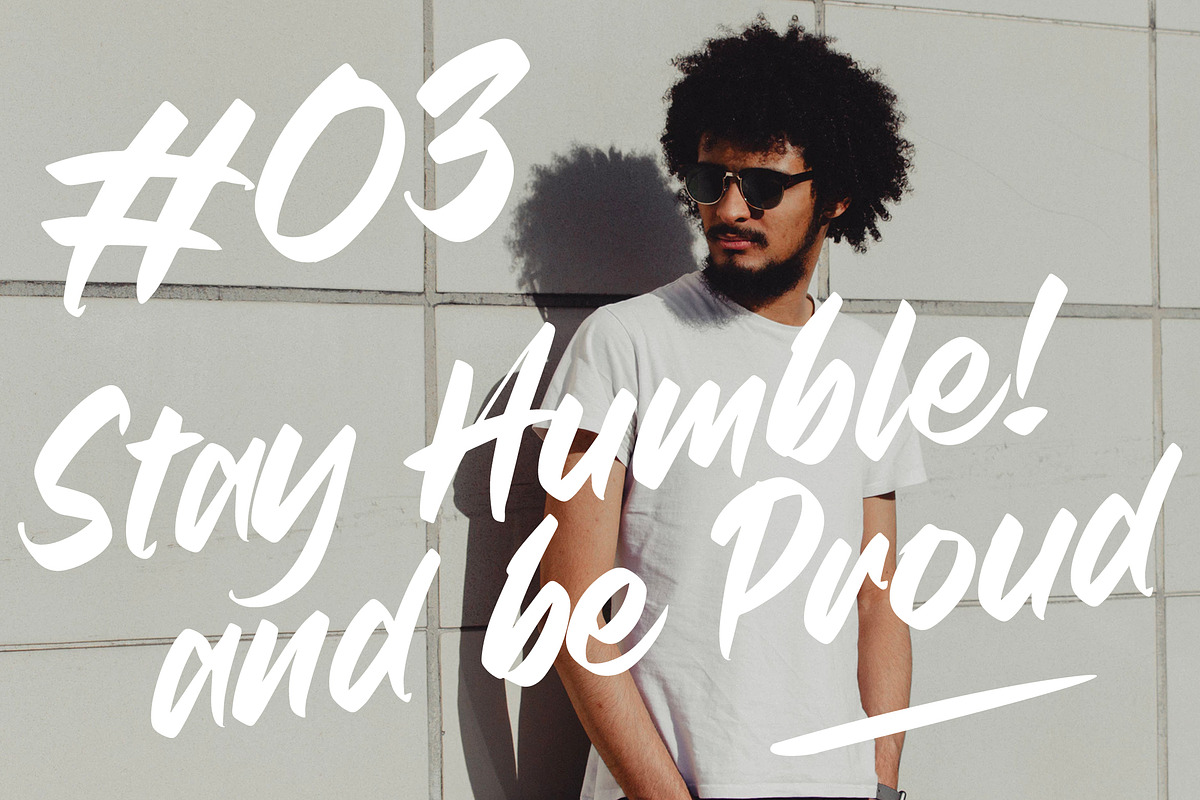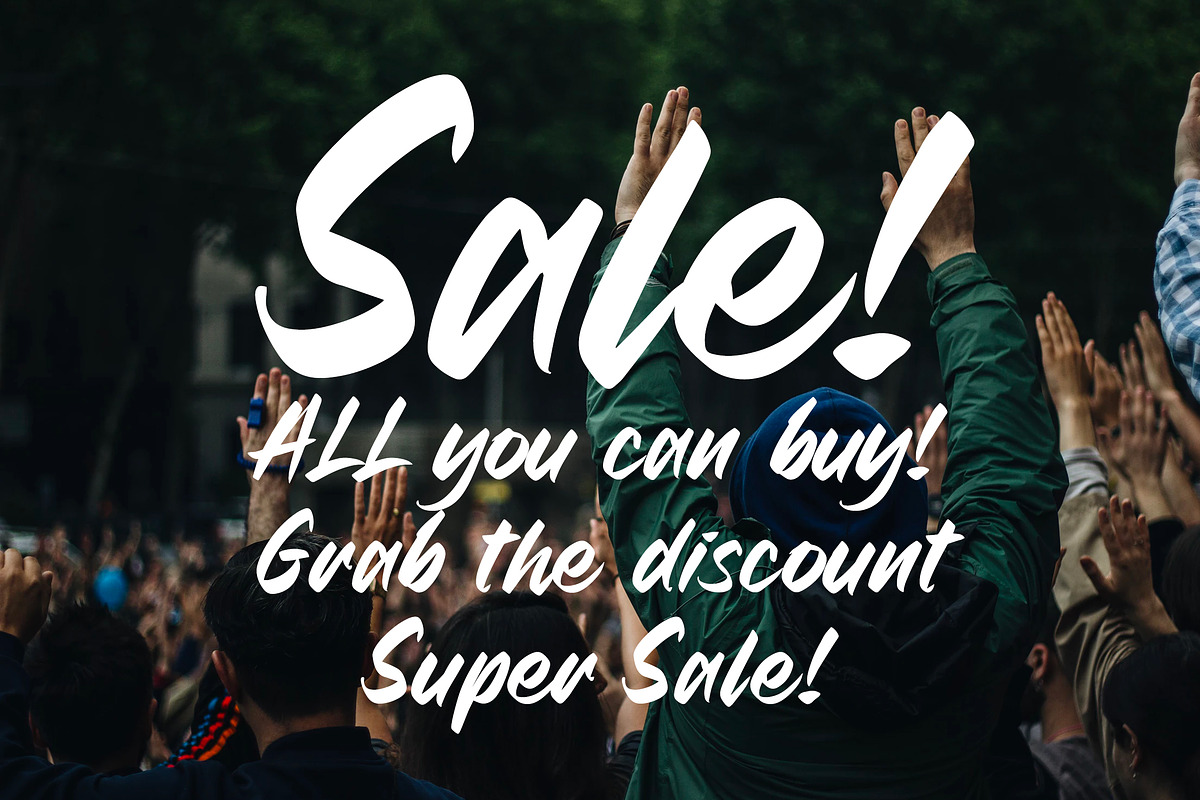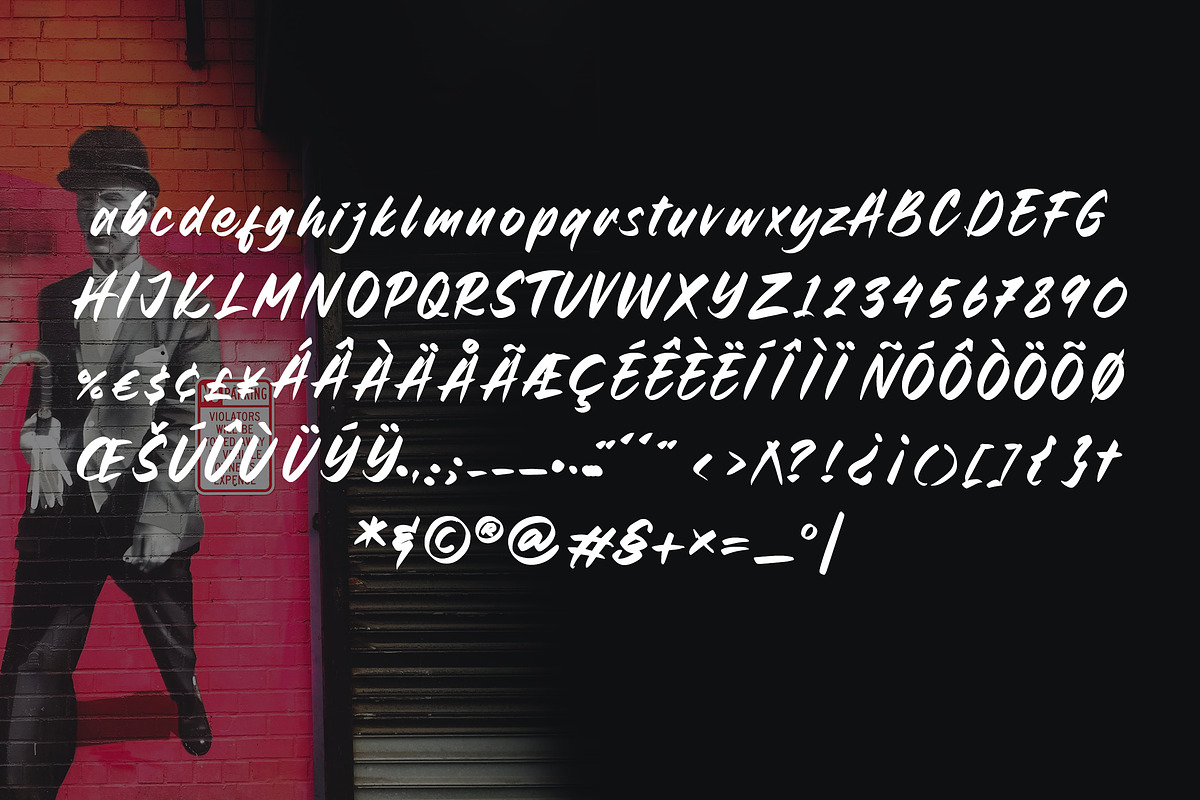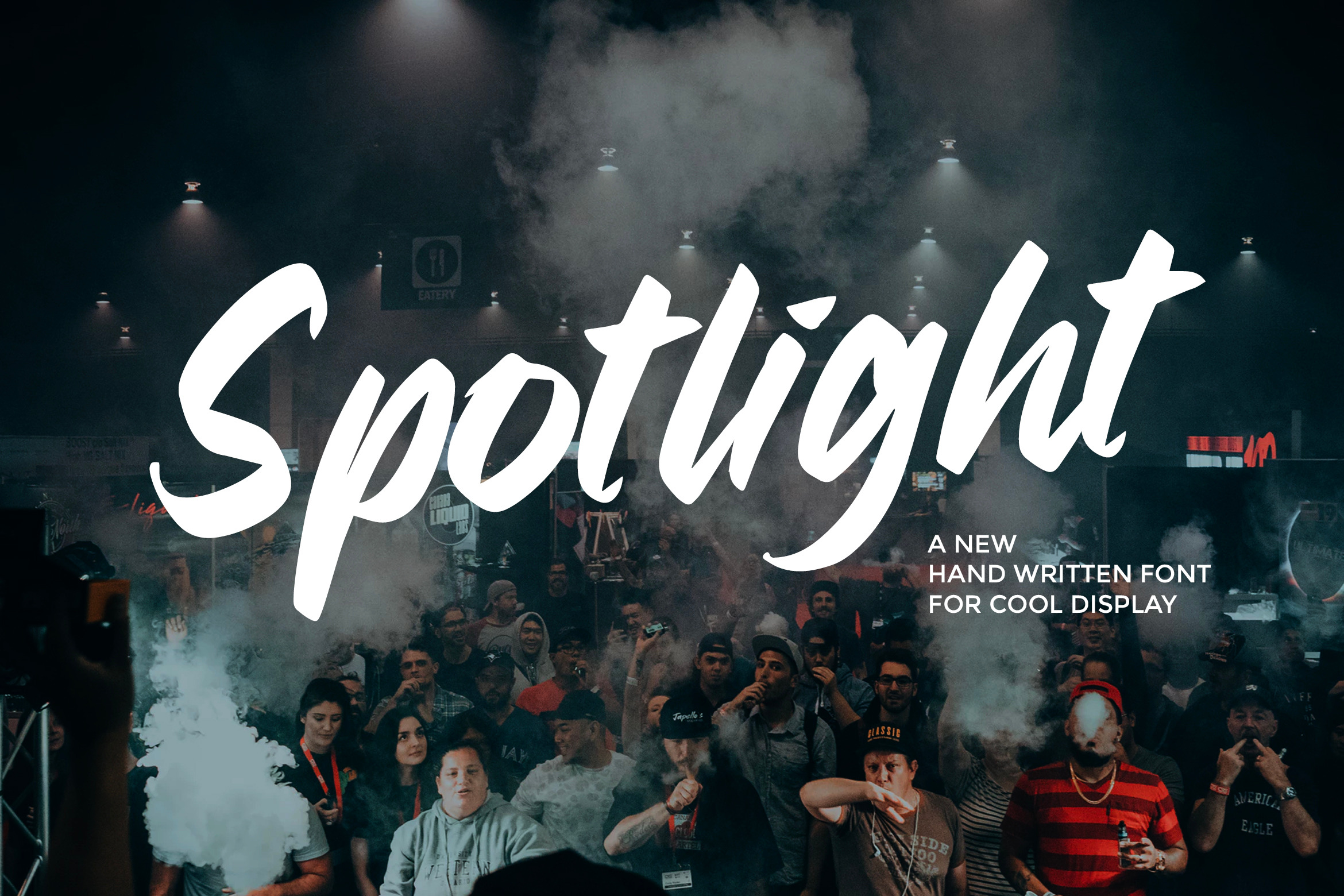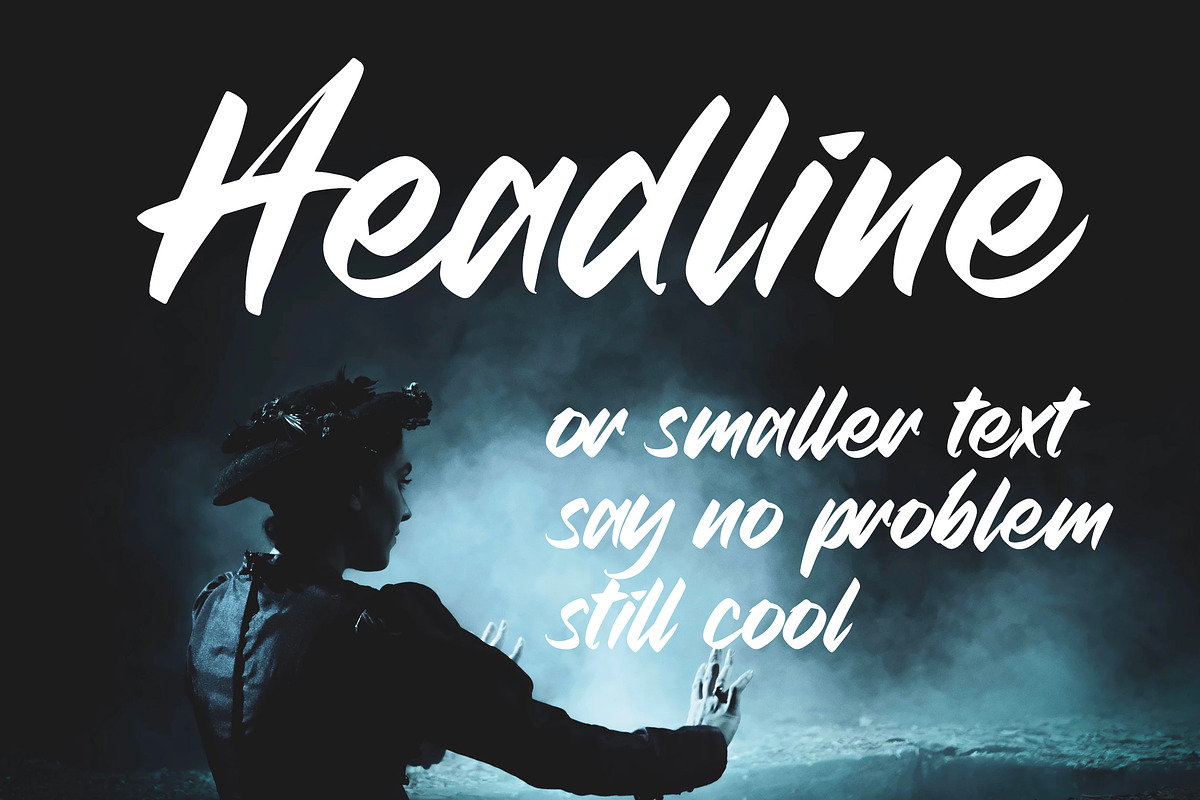
Spotlight - Handwritten Font
Introducing SPOTLIGHT, a unique display font from Strokes.ink. This handy sans serif includes a full character, numbers, punctuation & also alternate version. Perfect for big displays, titles, posters, marketing & advertising.
- Alternate glyphs for each lowercase letter
- Numbers & All major punctuation included